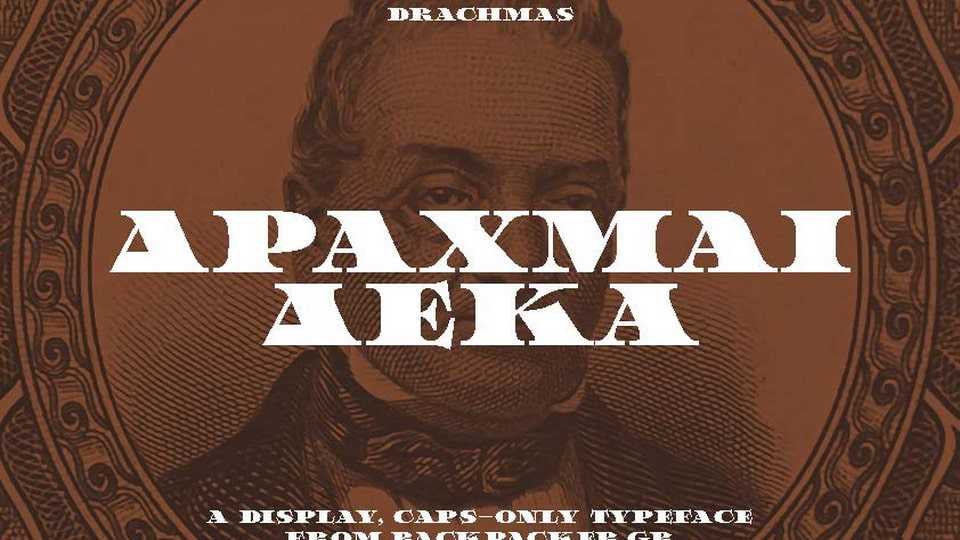
Download Drachmas font, a bold, caps-only display typeface inspired by the intricate lettering found on late 19th–early 20th century Greek banknotes.
Designer: Backpacker